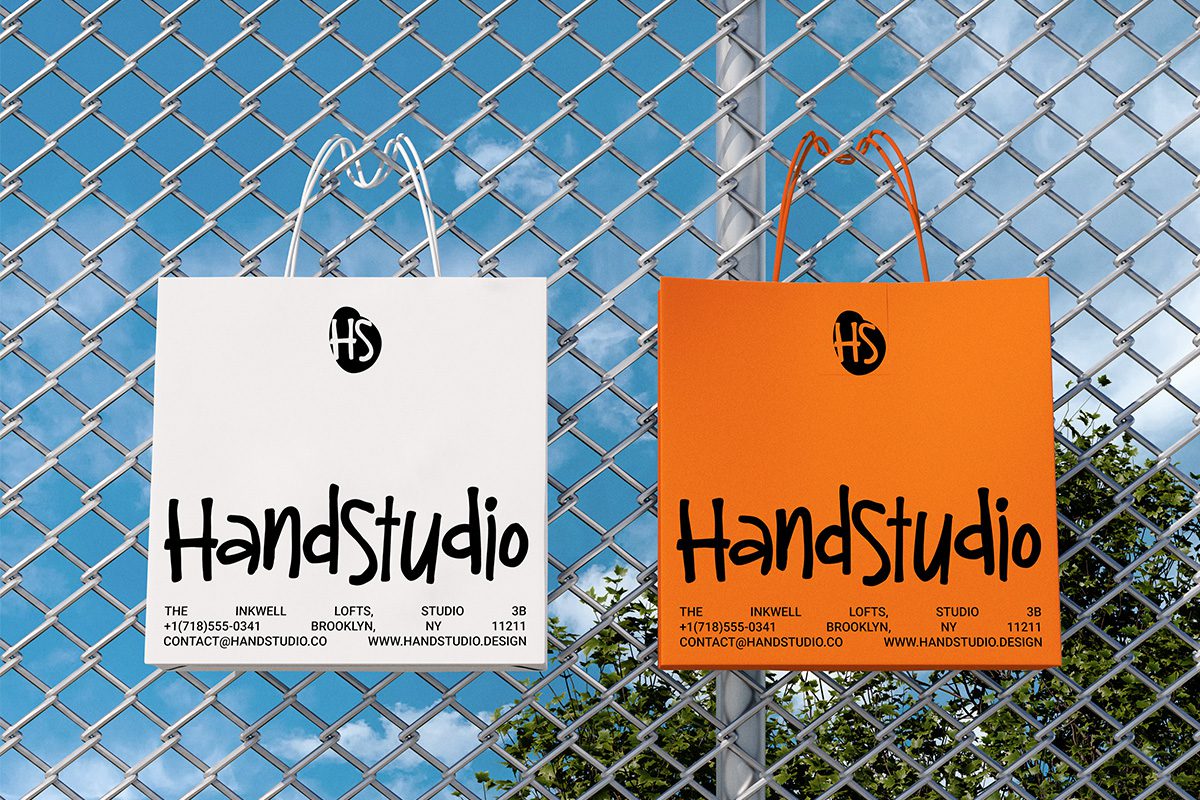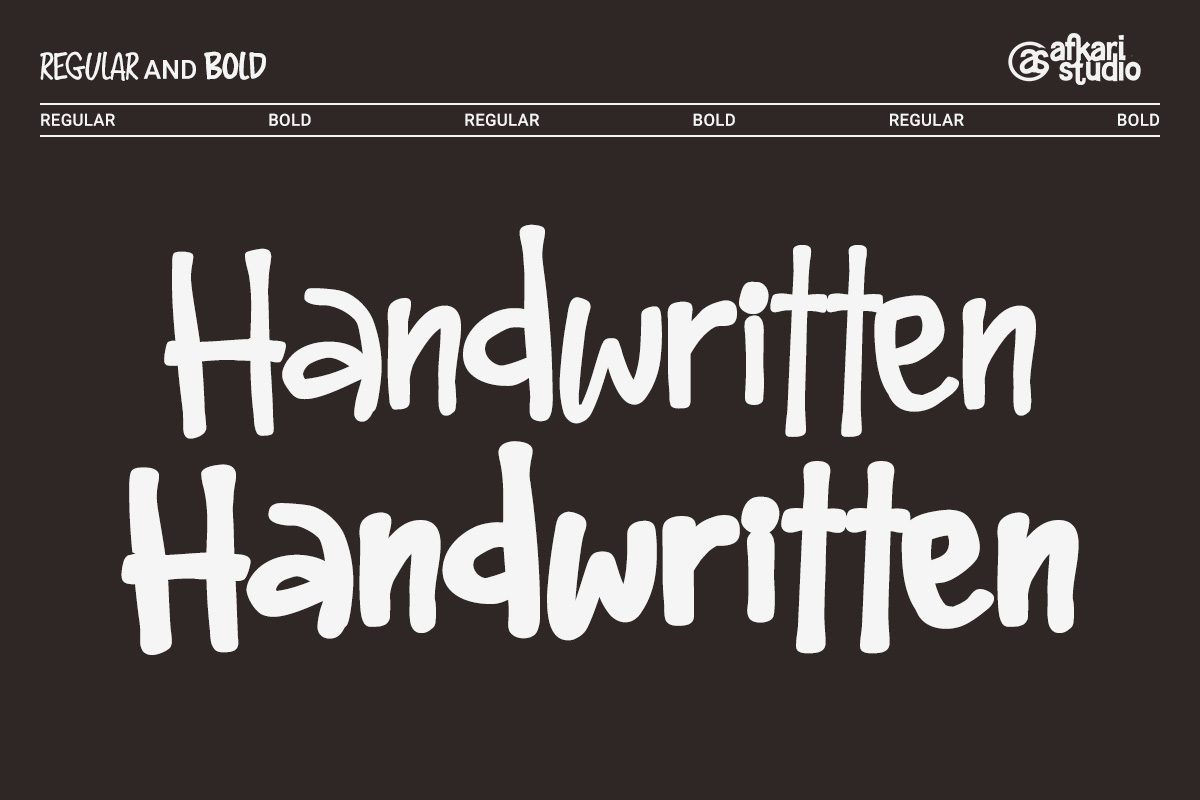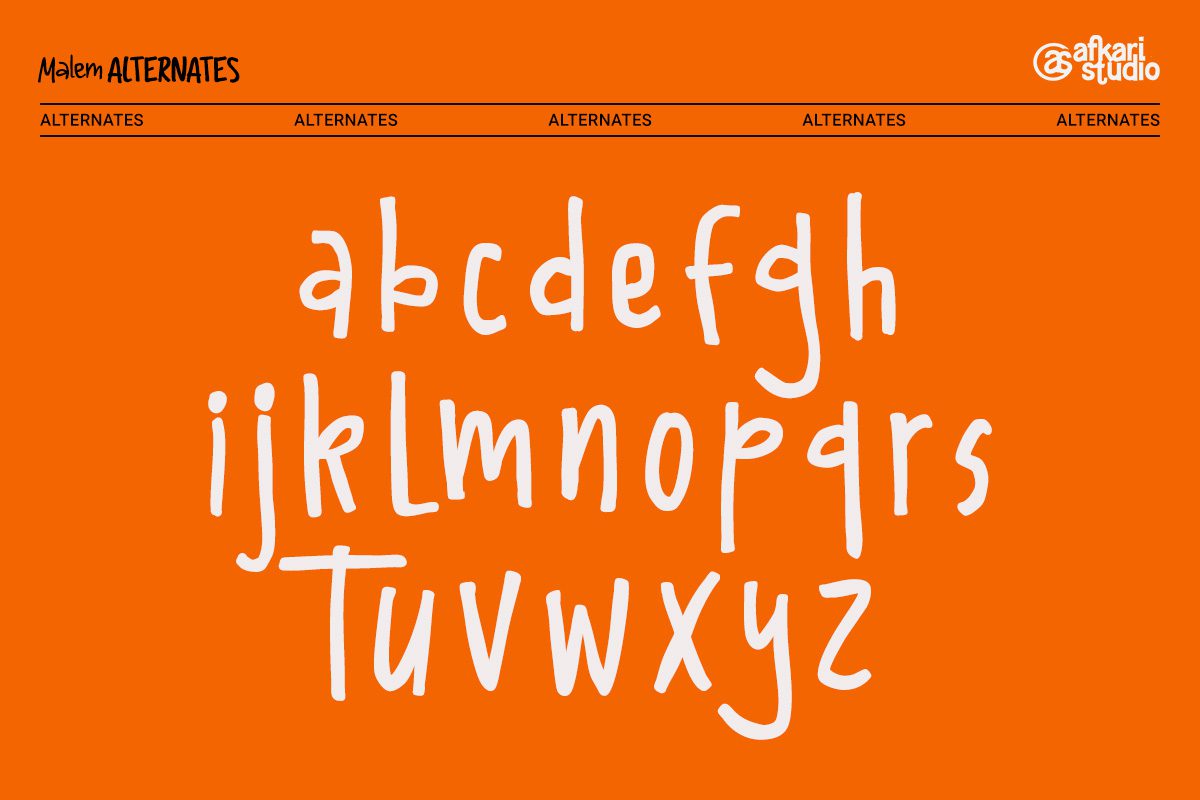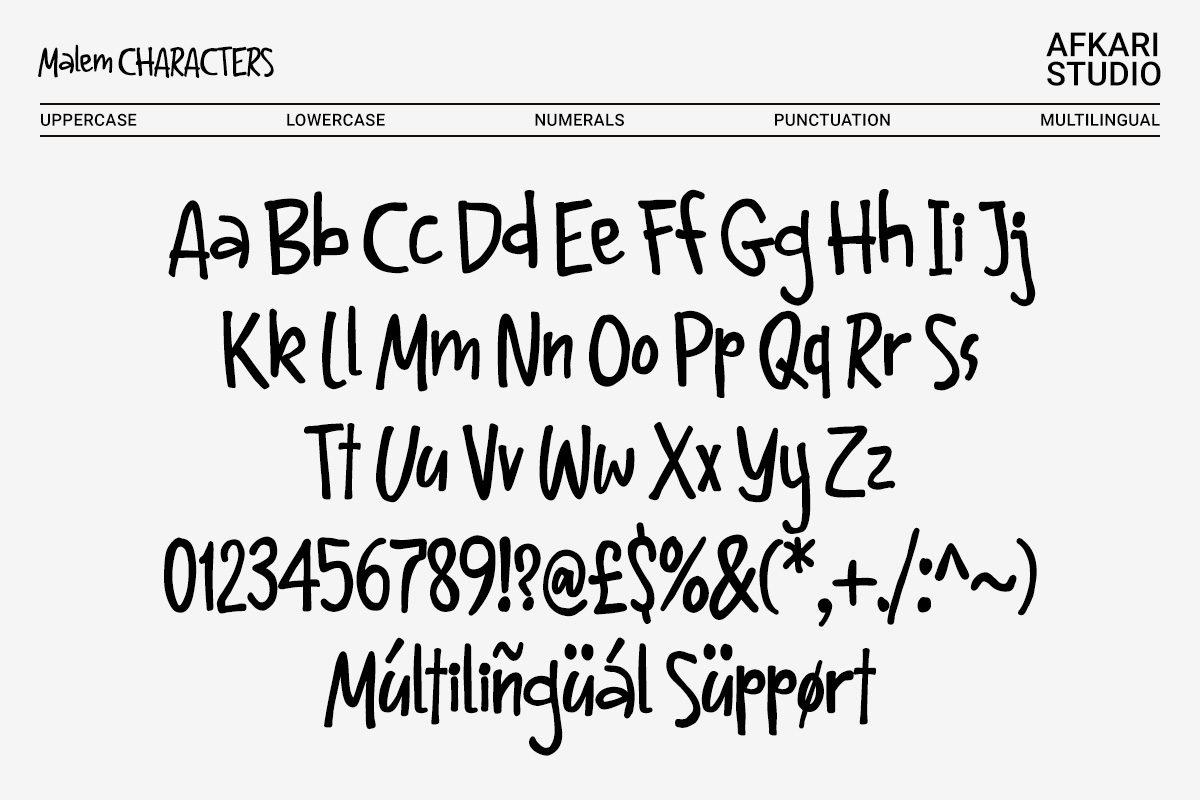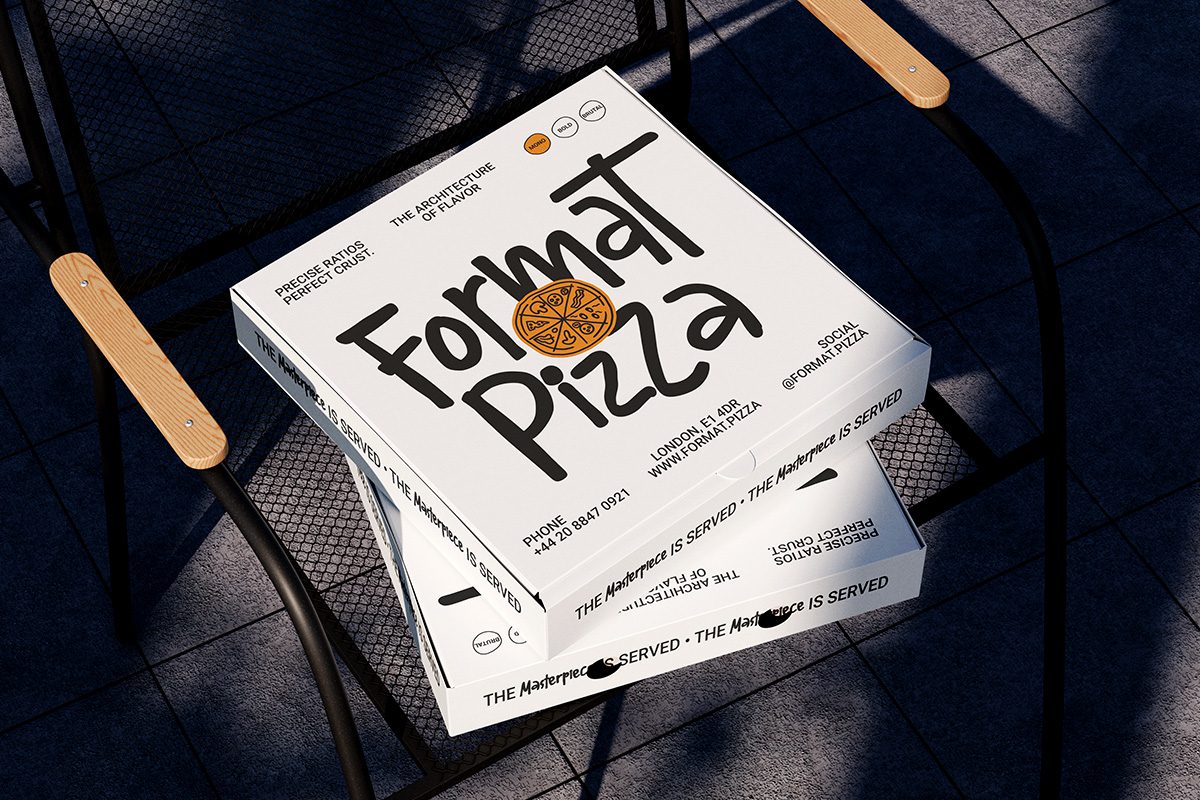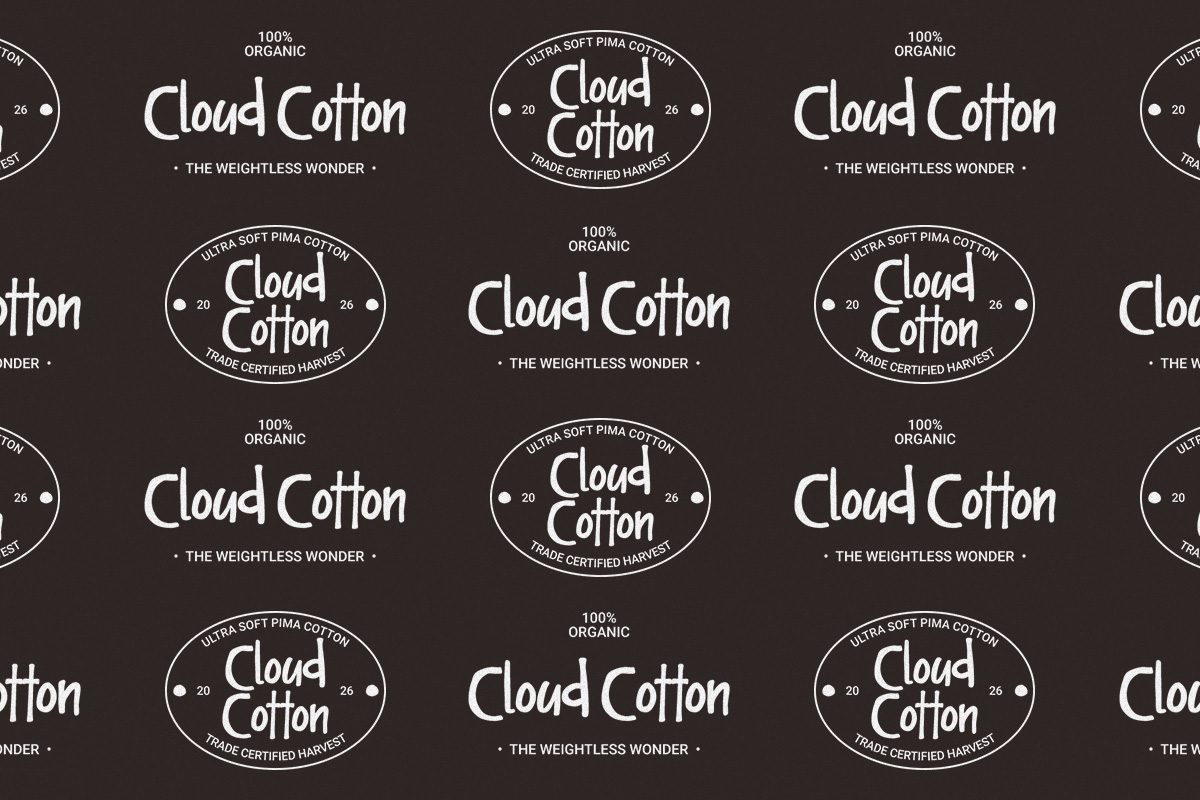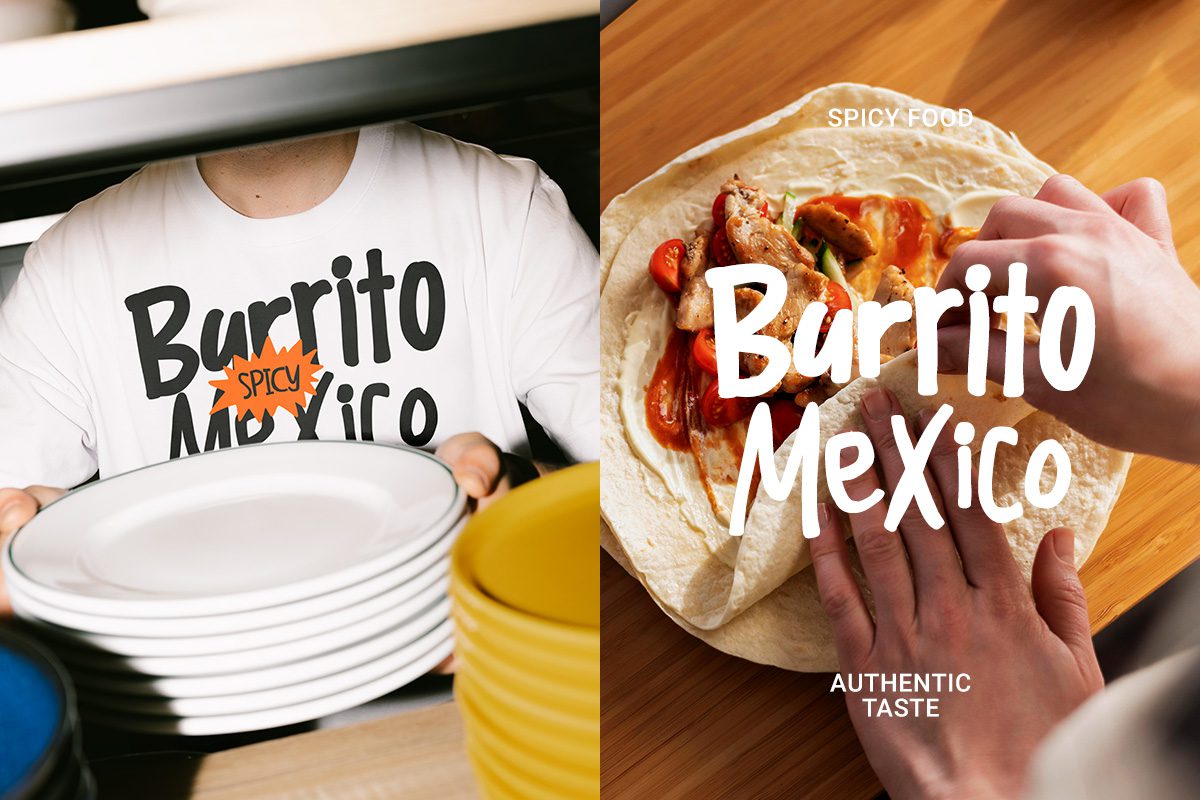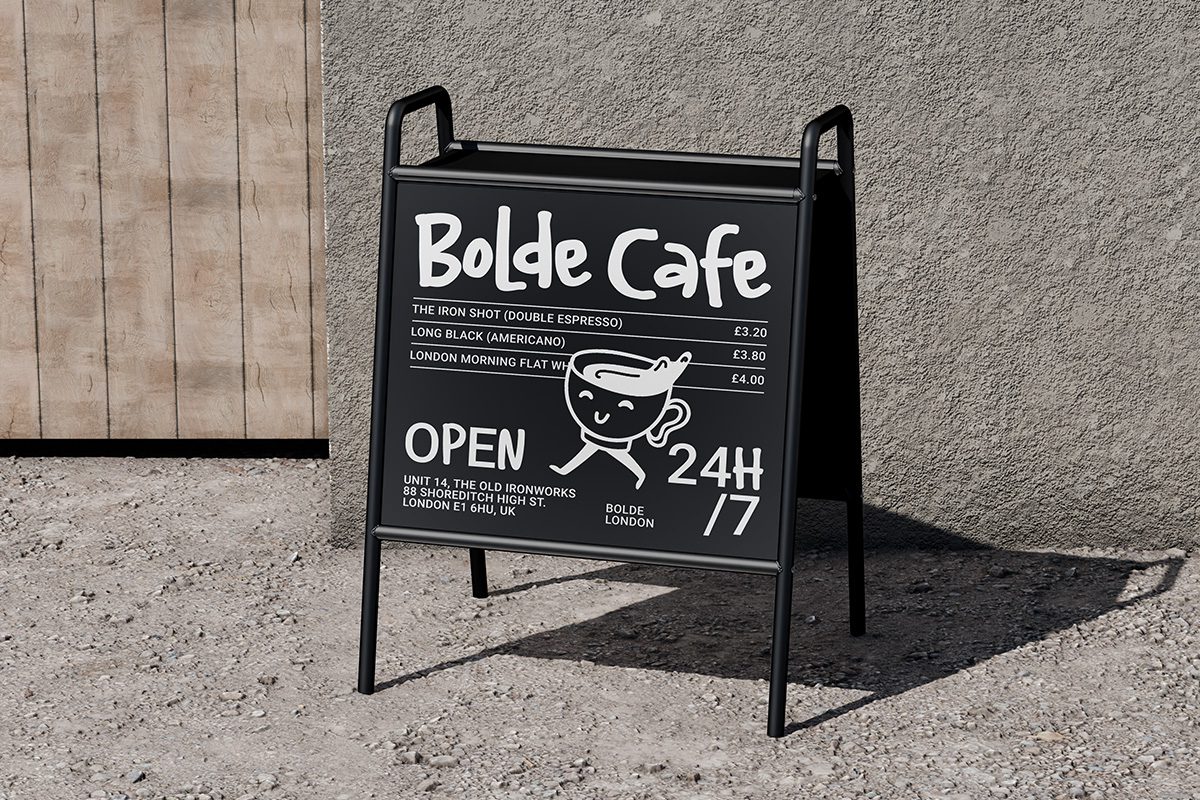
Malem – Natural Handwritten Display Font
Malem is a natural handwritten display font designed to capture the warmth and authenticity of real handwriting. With organic strokes and a relaxed rhythm, Malem feels personal, friendly, and expressive—perfect for designs that need a human touch.
This font comes with Regular and Bold styles, giving you flexibility to create contrast and hierarchy in your layouts. Use Regular for a soft, casual feel and Bold for stronger emphasis in headlines, titles, and key messages. Despite its natural look, Malem remains clear and readable across both digital and print projects.
Malem is ideal for creatives who want typography that feels handcrafted, warm, and approachable.
– Uppercase, Lowercase, Number, and Punctuation
– Special alternates and ligatures
– Mültîlíñgúãl Sùppört for; ä ö ü Ä Ö Ü ß ¿ ¡
Malem is ideal for designers who want a handwritten font that feels natural, approachable, and full of character.